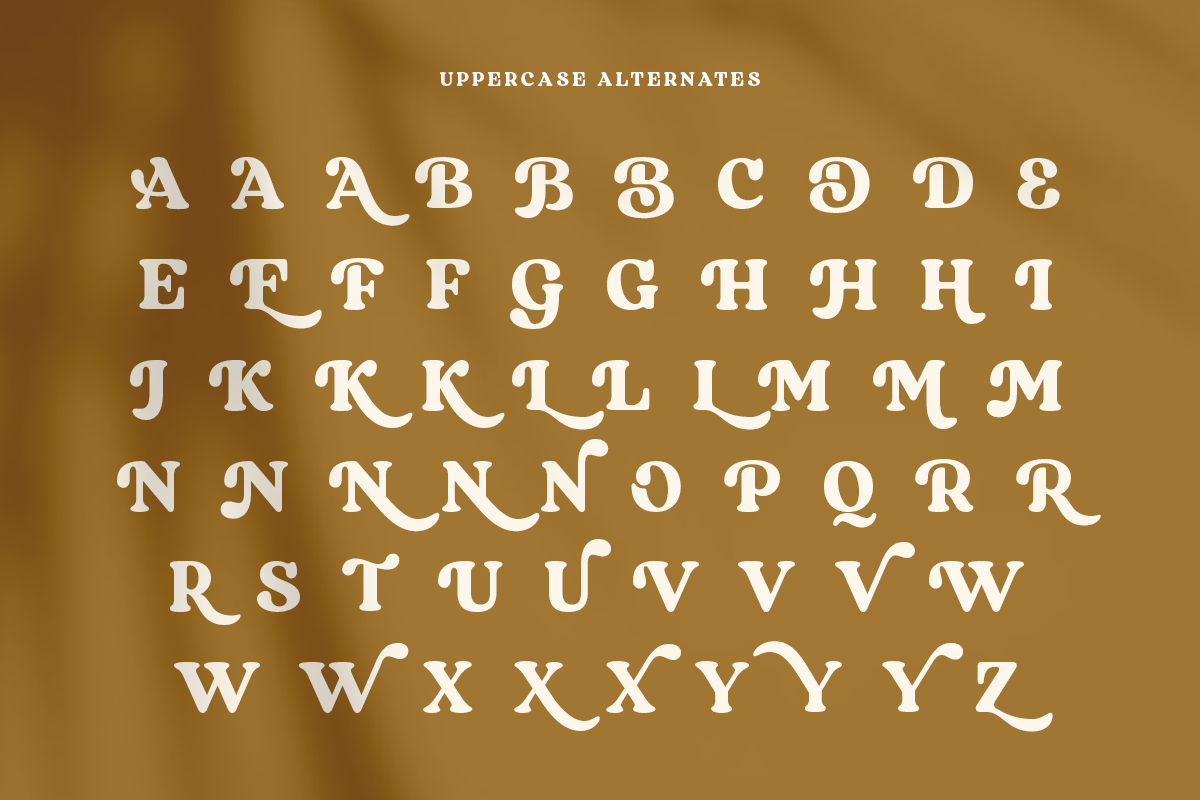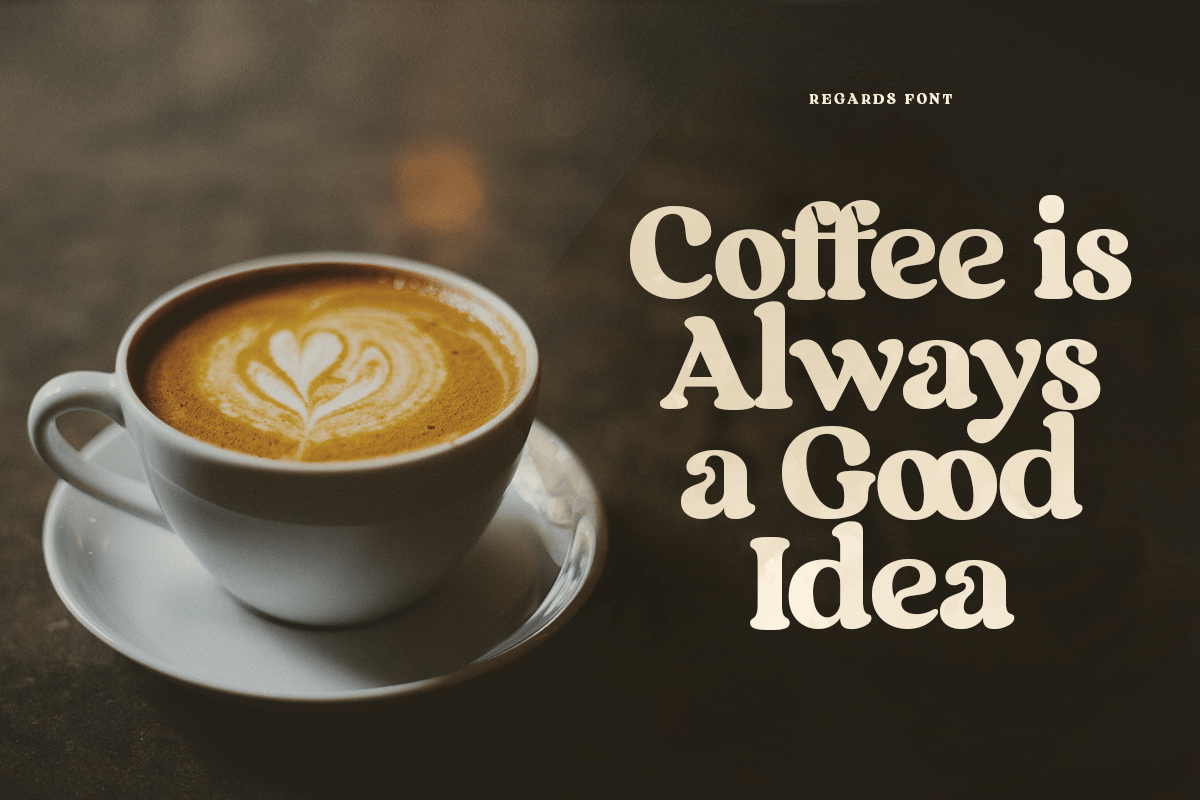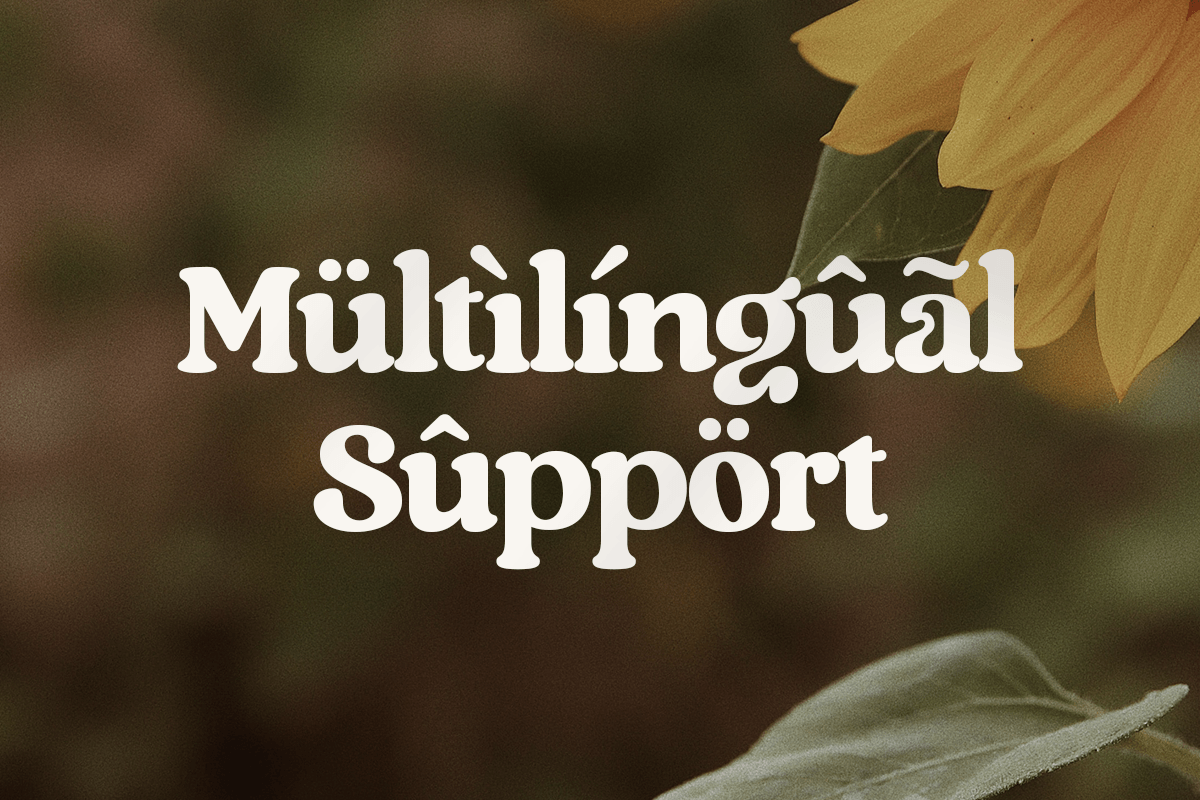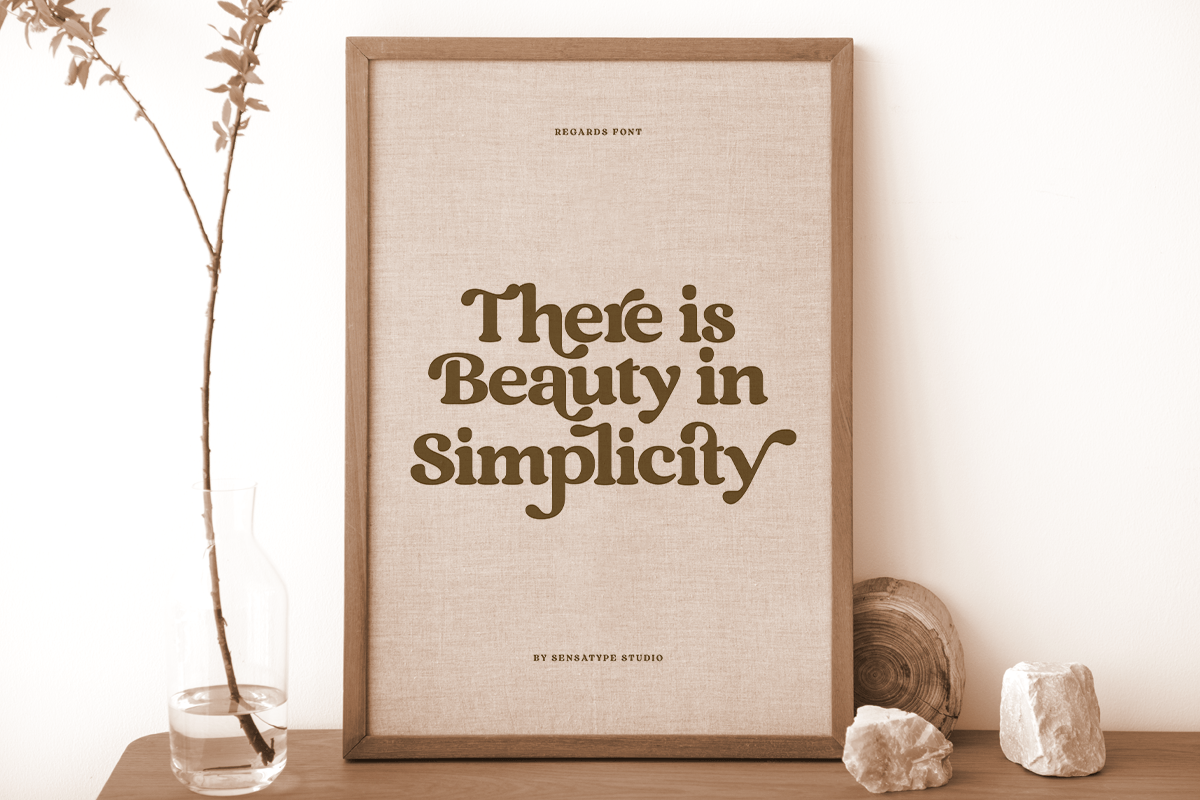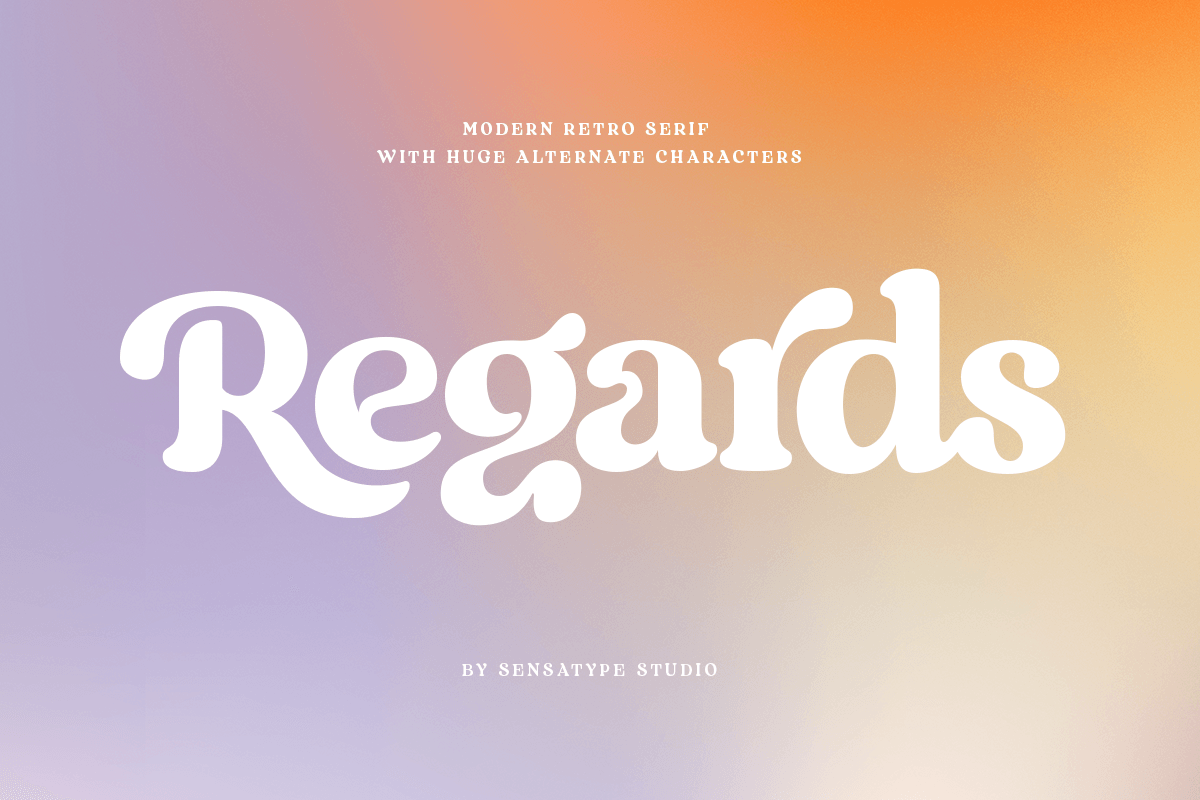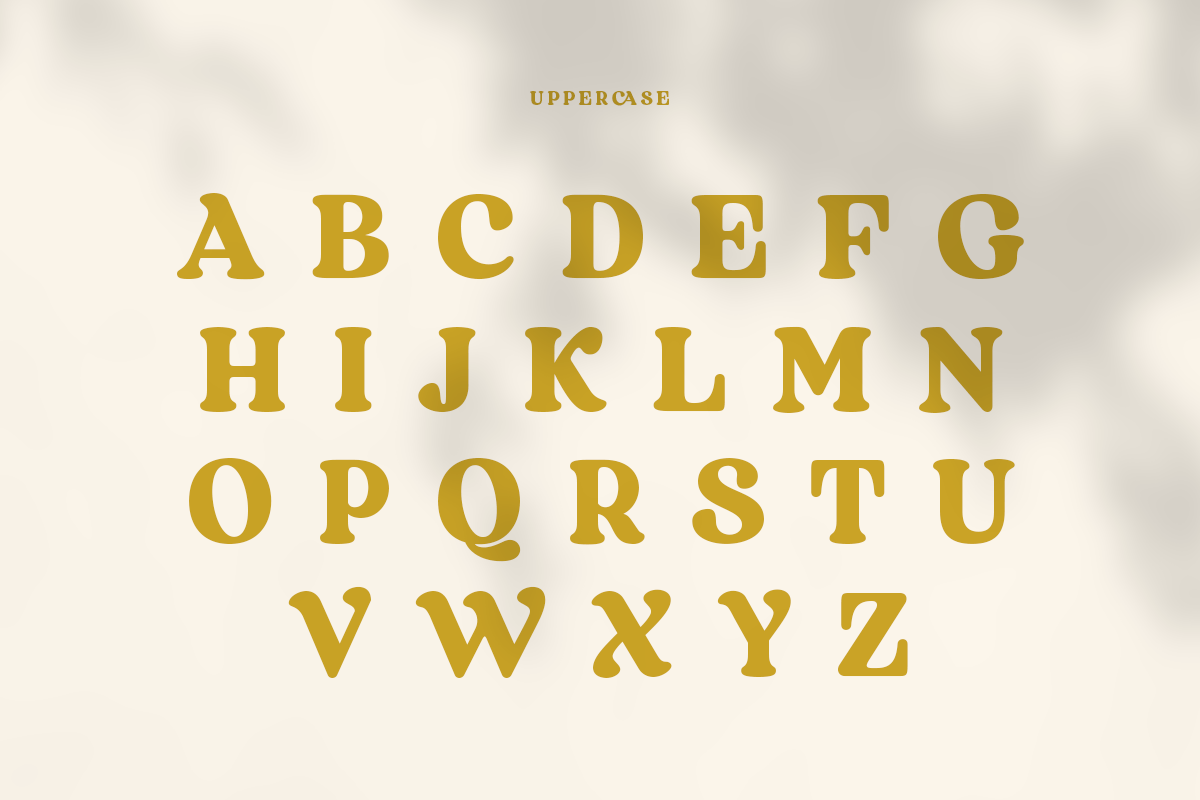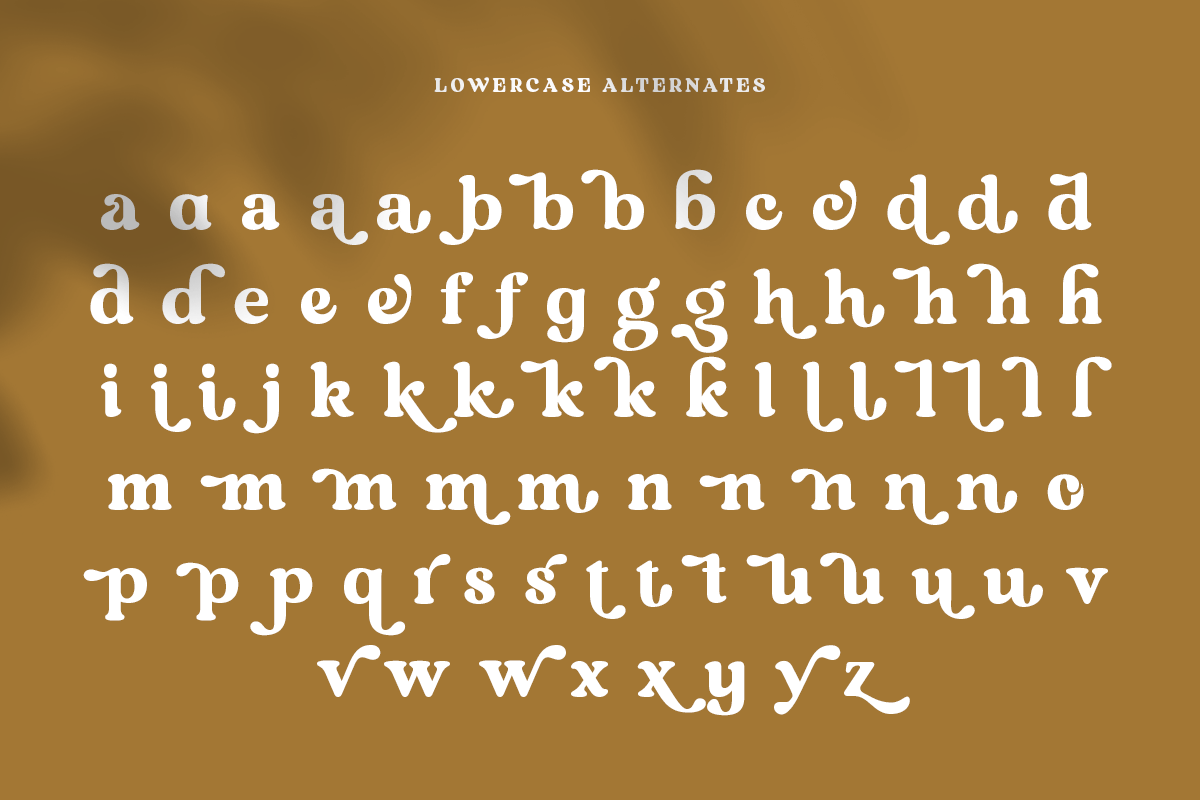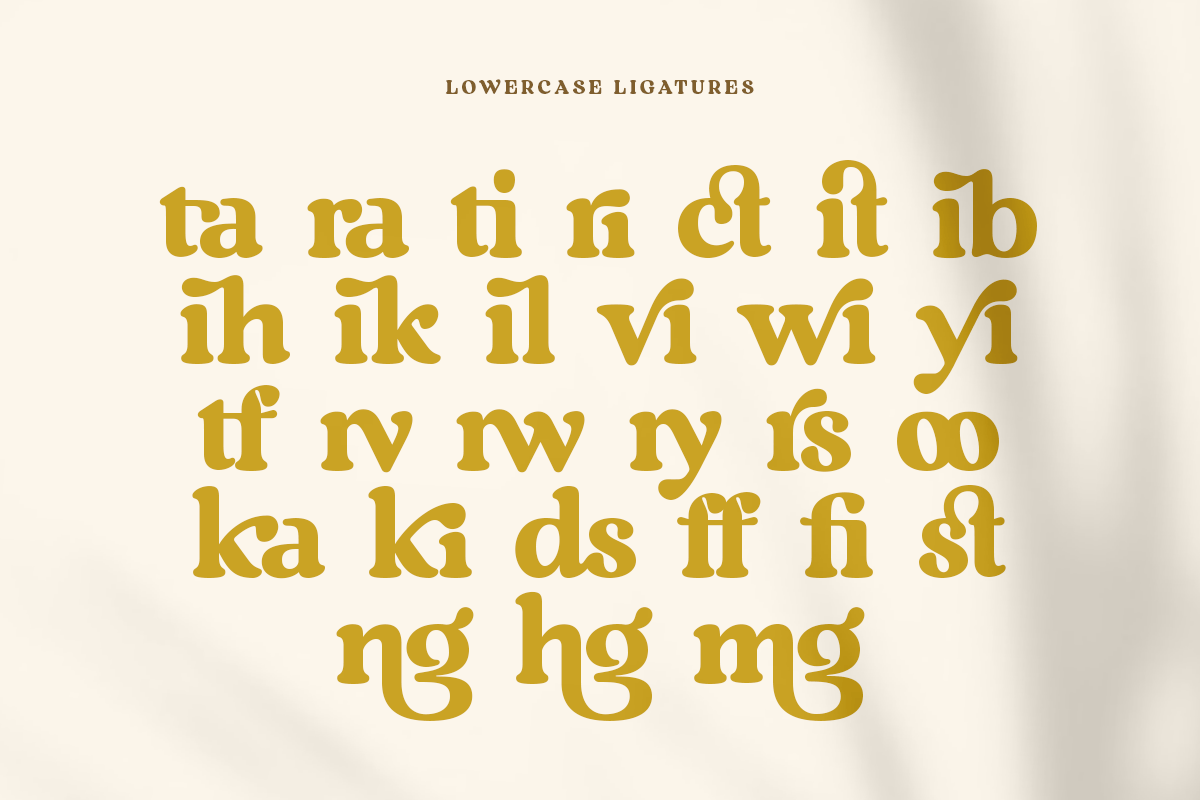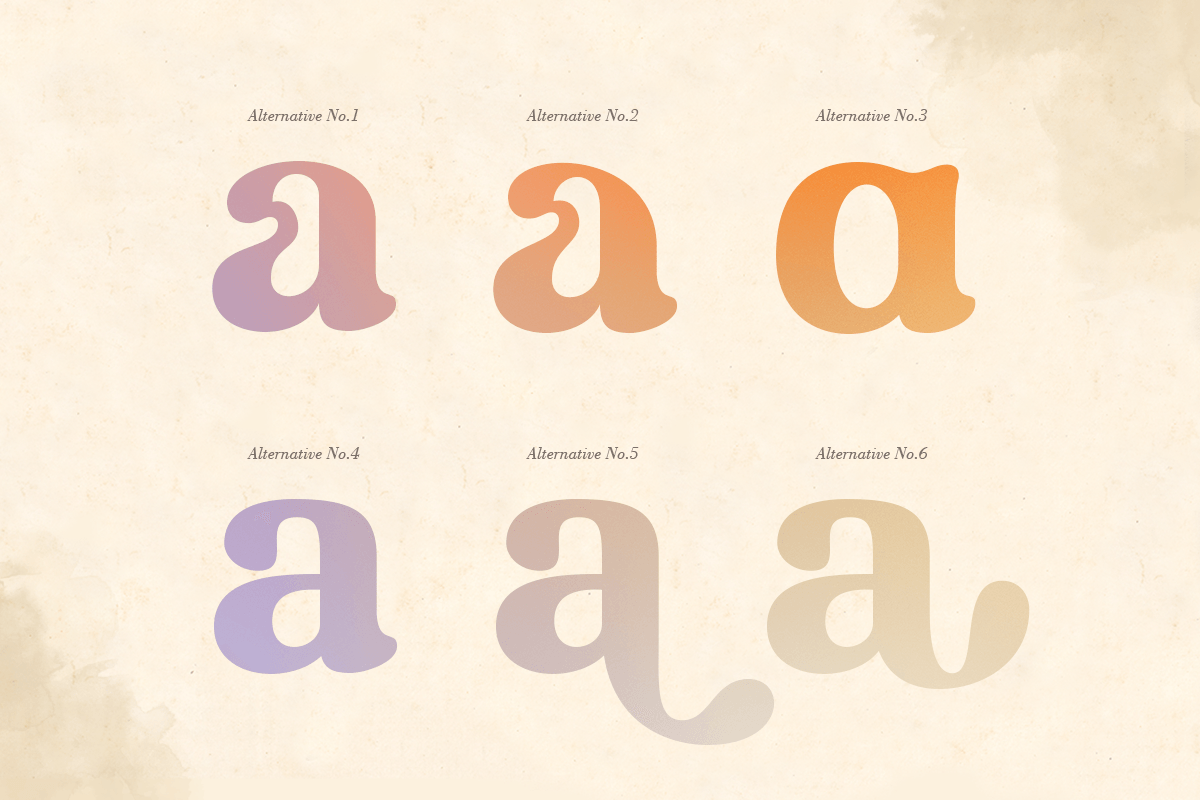
Regards - Modern Retro Serif
Regards is a modern retro serif font designed to blend classic charm with contemporary style. Ideal for branding, logos, editorial layouts, packaging, and social media, it brings a timeless yet fresh aesthetic to your projects.
With elegant and well-balanced letterforms, Regards ensures readability while delivering a refined and stylish appearance in both print and digital applications.
Regards – Modern Retro Serif Features
- Elegant and stylish serif character set
- Pefect for branding, logos, and editorial designs
- Uppercase, lowercase, numerals, and punctuation included
- OpenType features for extra versatility
- Multilingual support